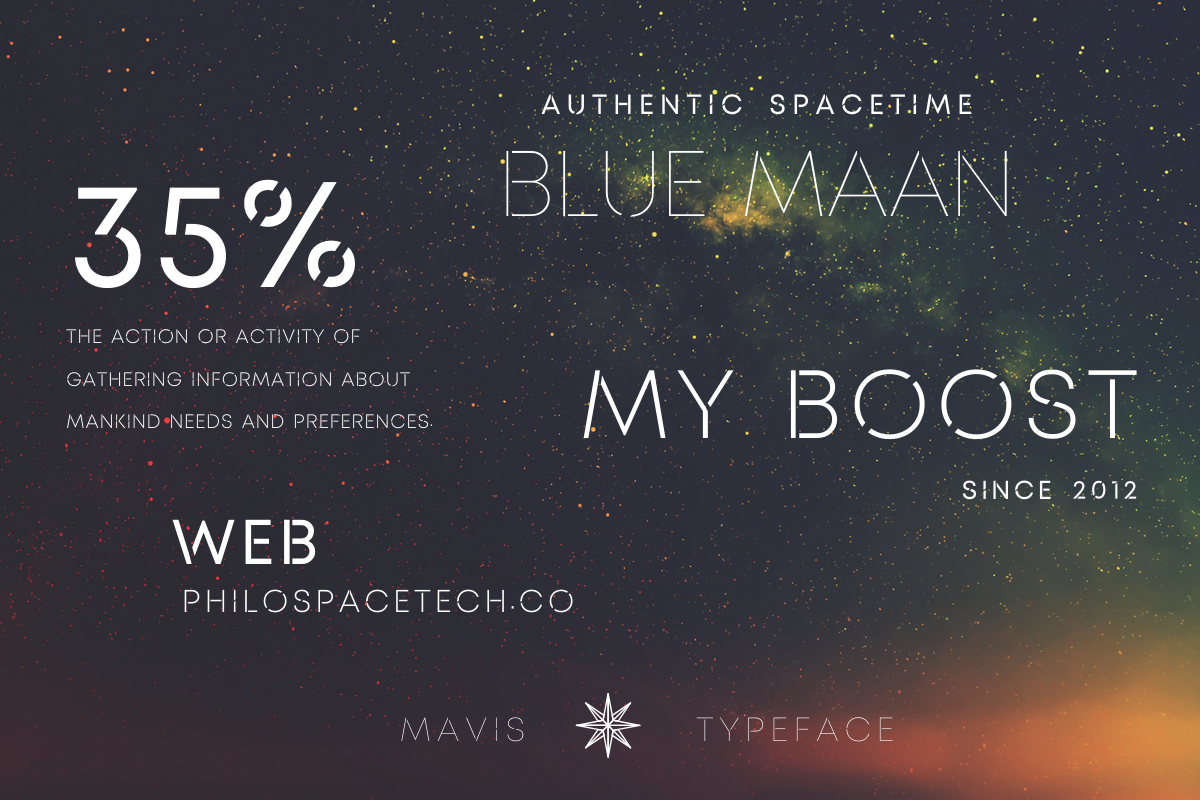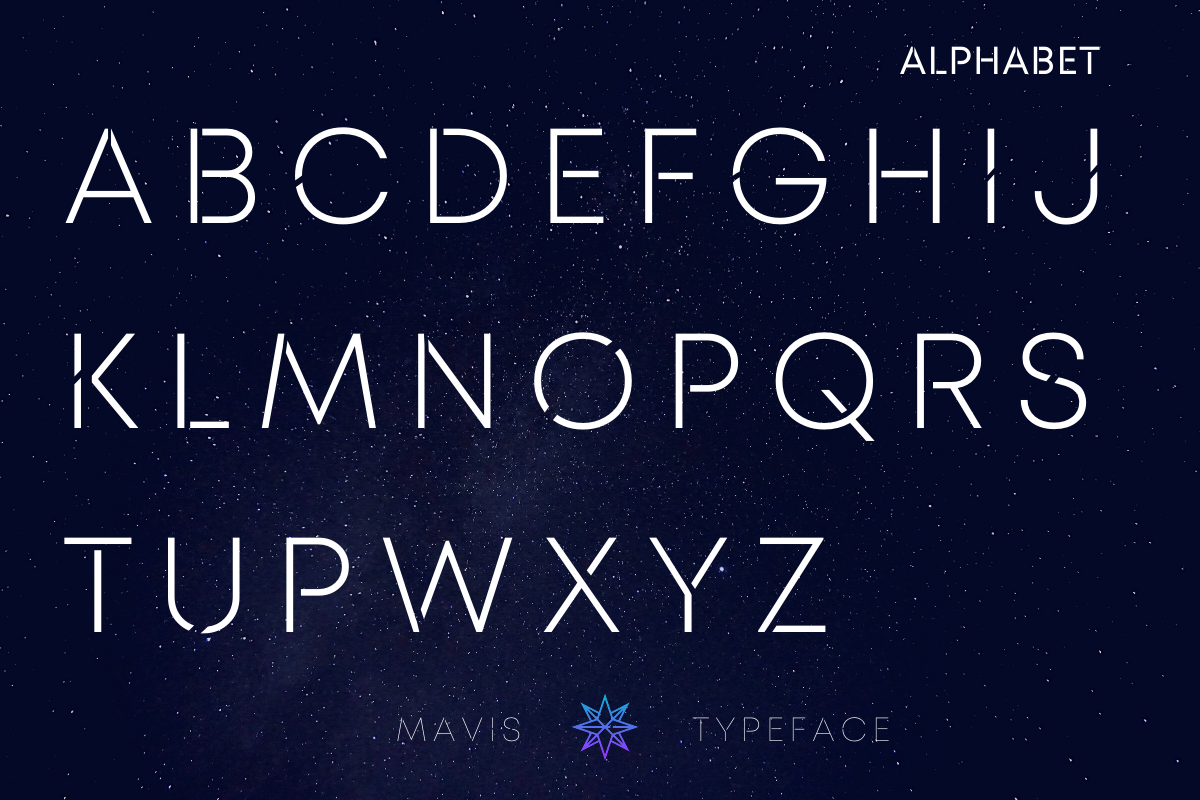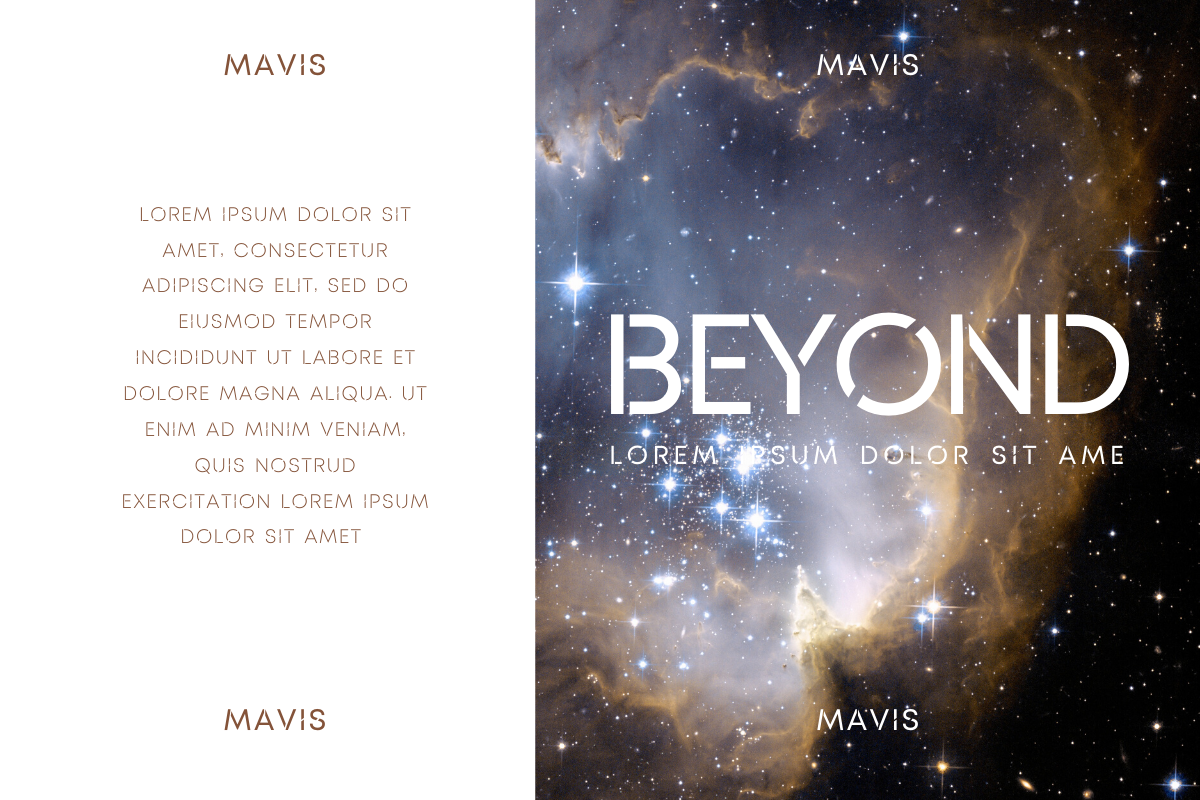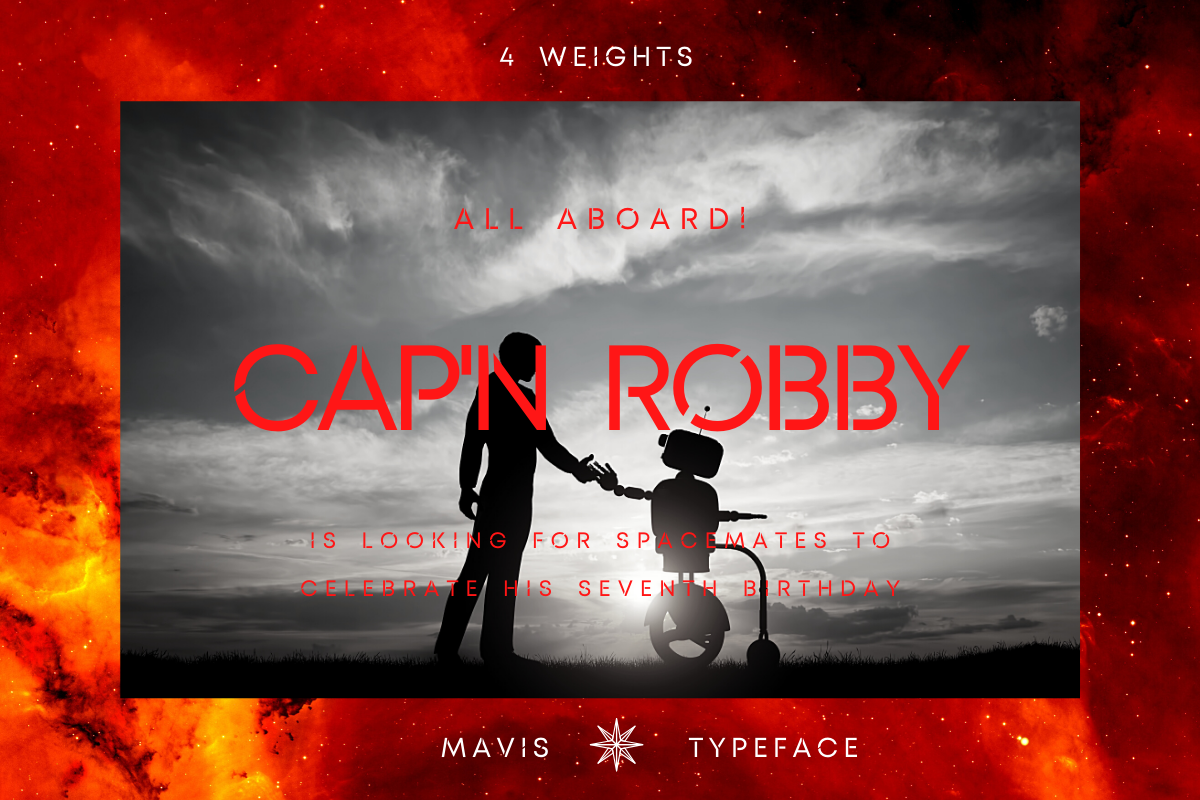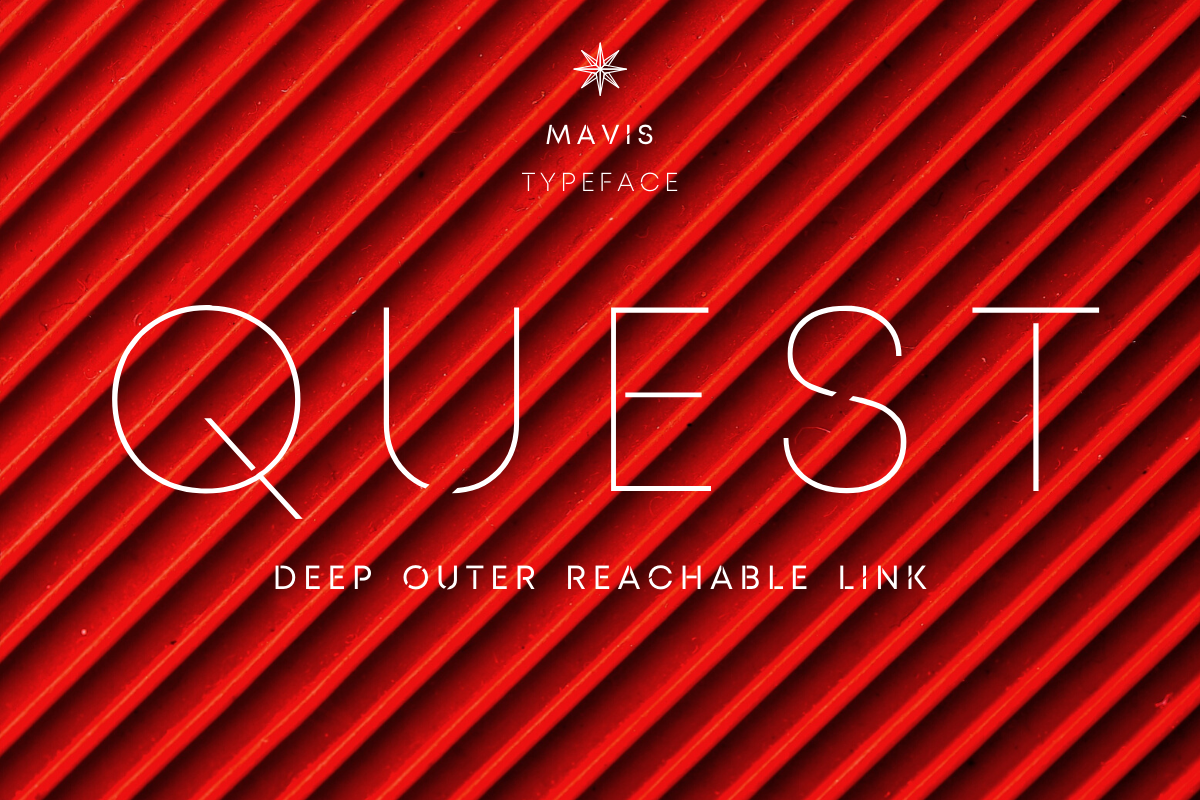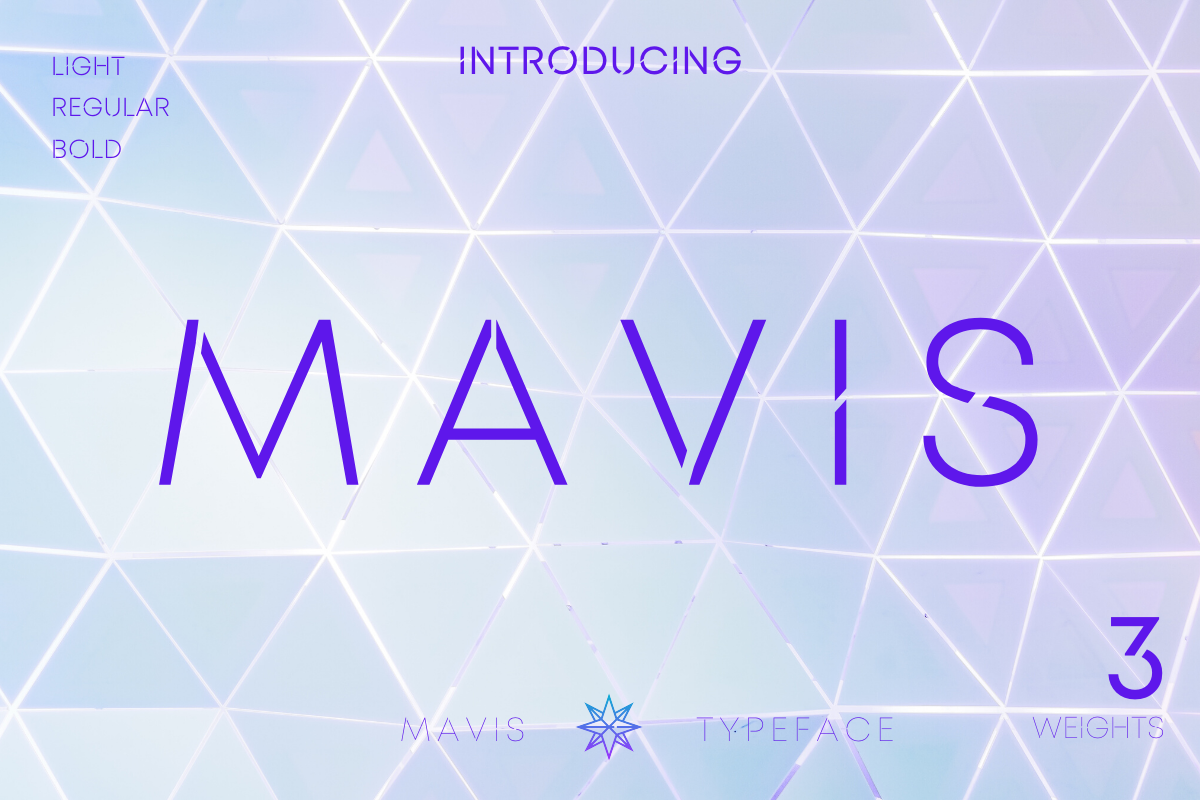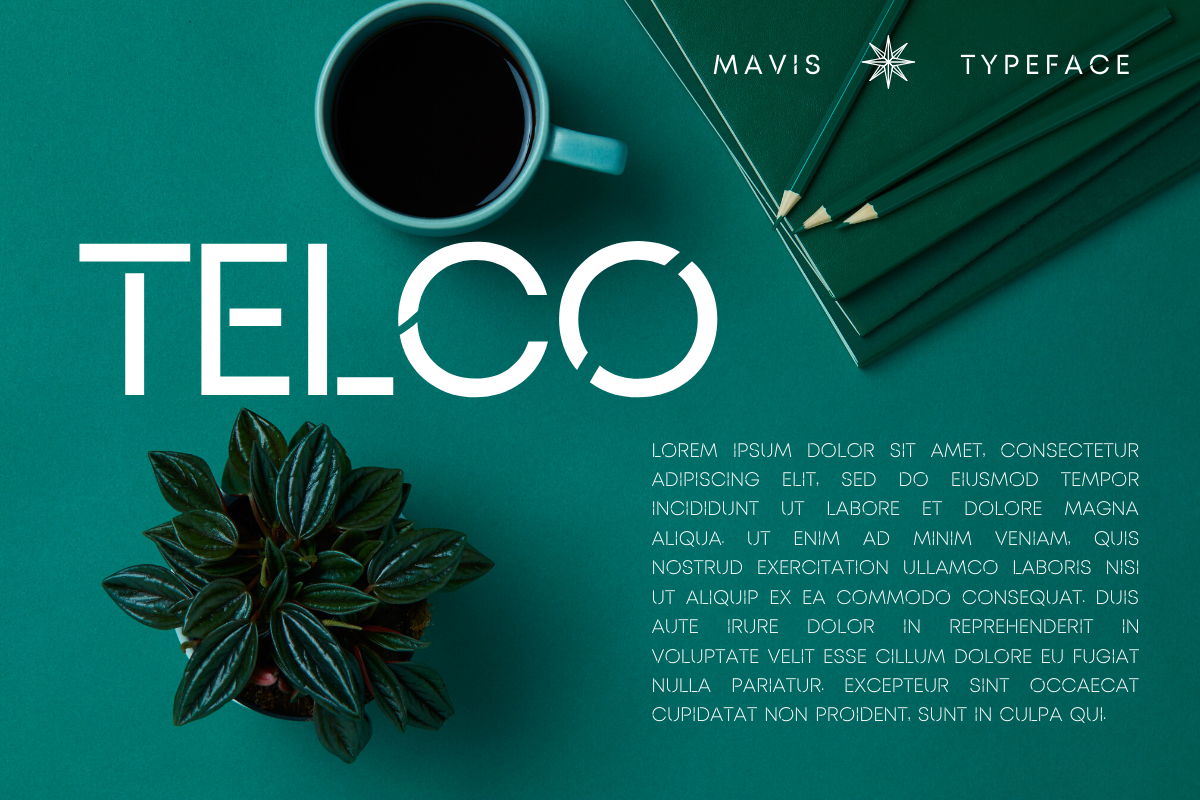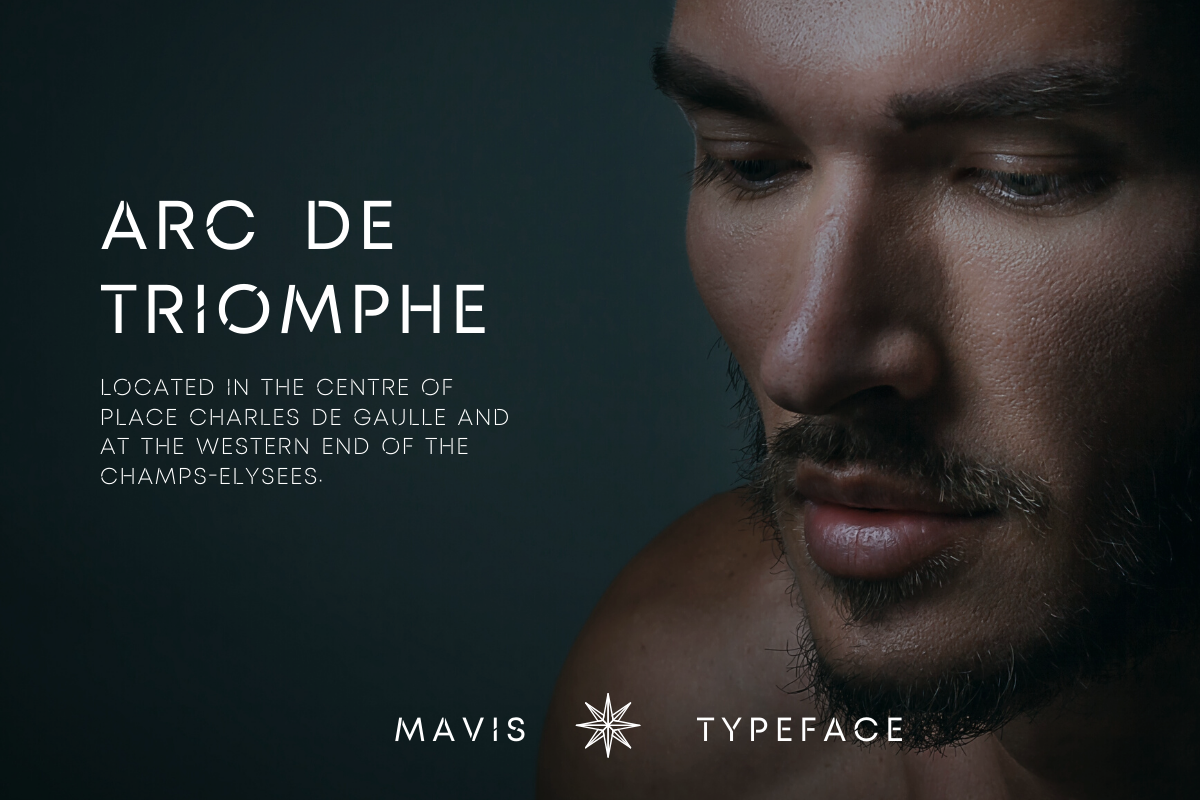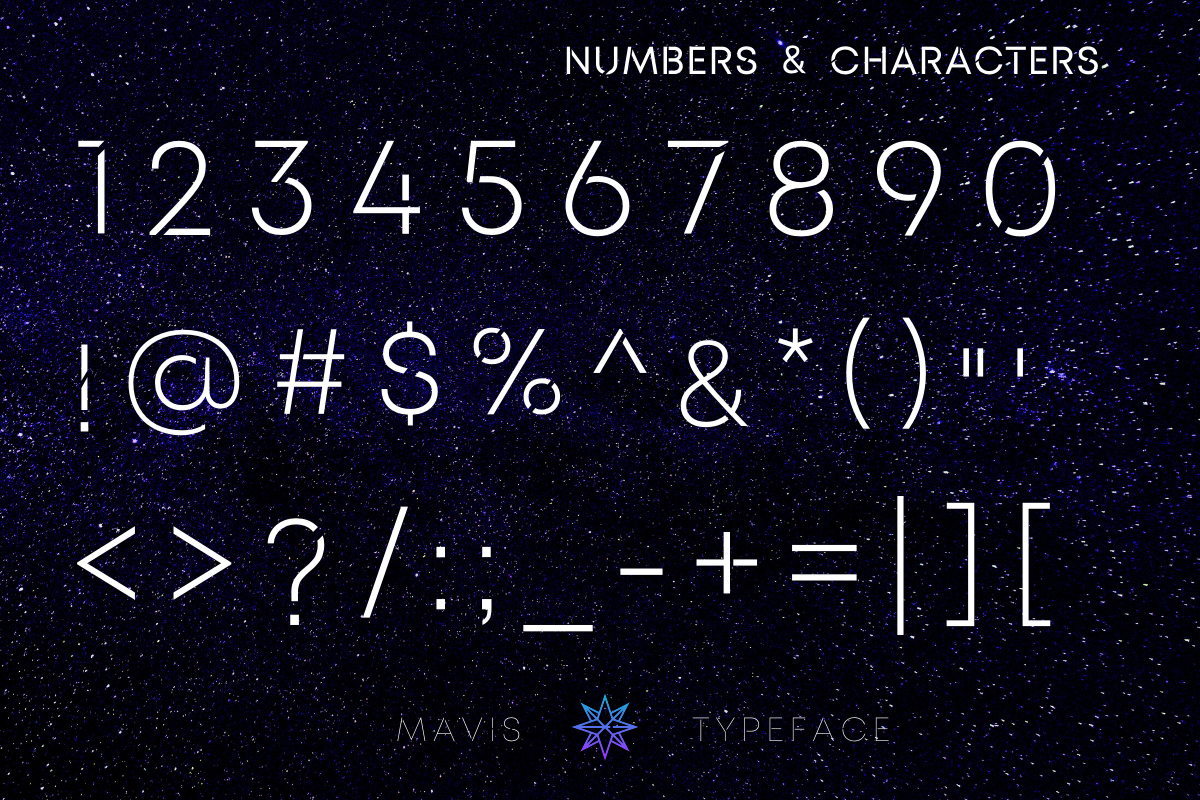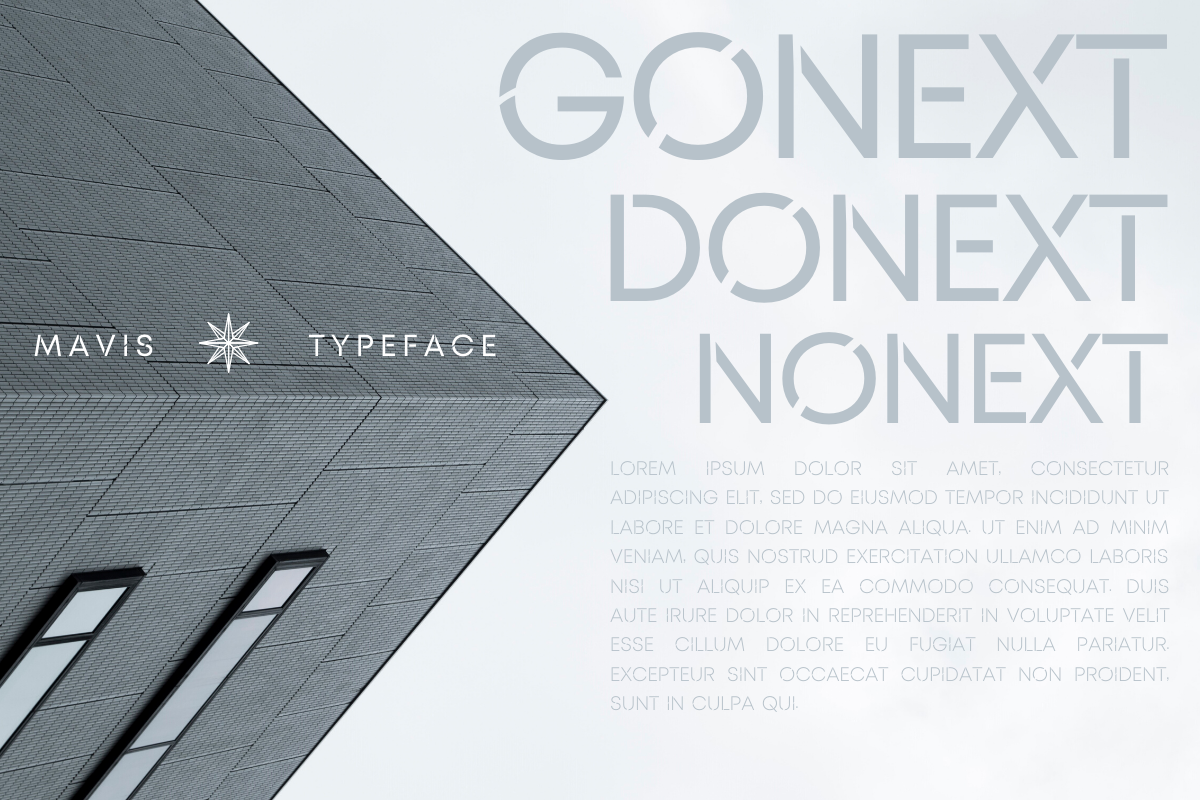
MAVIS SANS - FUTURISTIC TYPEFACE
Introducing MAVIS SANS FUTURISTIC & SPACE Typeface
MAVIS is a futuristic, space & tech looking font family.
It’s thin and simple, but it’s strong and significant defined by its thin strokes and unique cuts. It is designed for optimal legibility. An all caps sans-serif, MAVIS makes a strong attention grabber for any occasions.
Three weights for very different personalities.
- MAVIS Bold - Thin yet bold and strong!
- MAVIS Light - Delicate, elite & in style.
- MAVIS Regular - The best of the both worlds!
It is great for any branding with futuristic, space & tech theme or any theme for header, logos, video game, magazine film, typography project, book and cover.